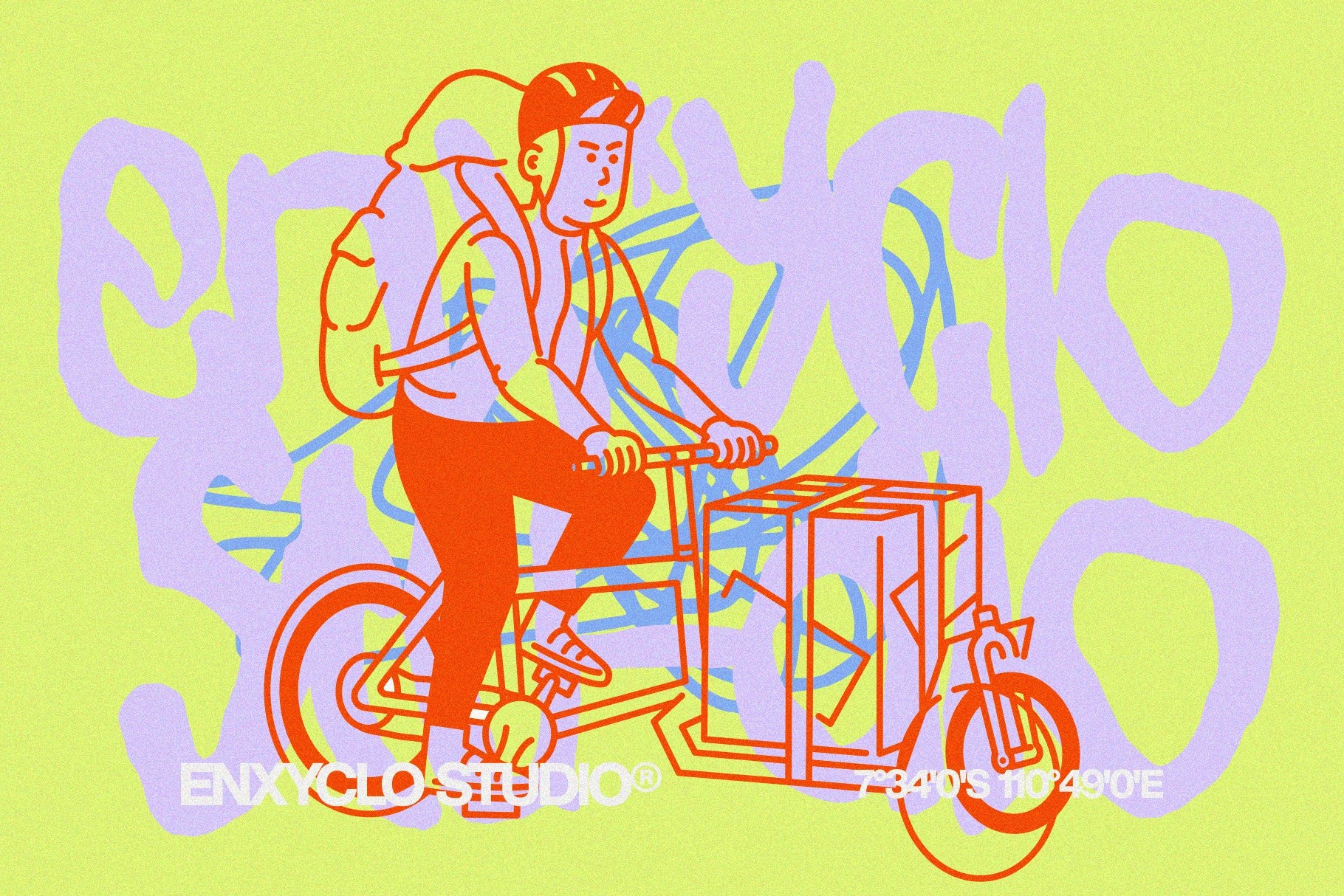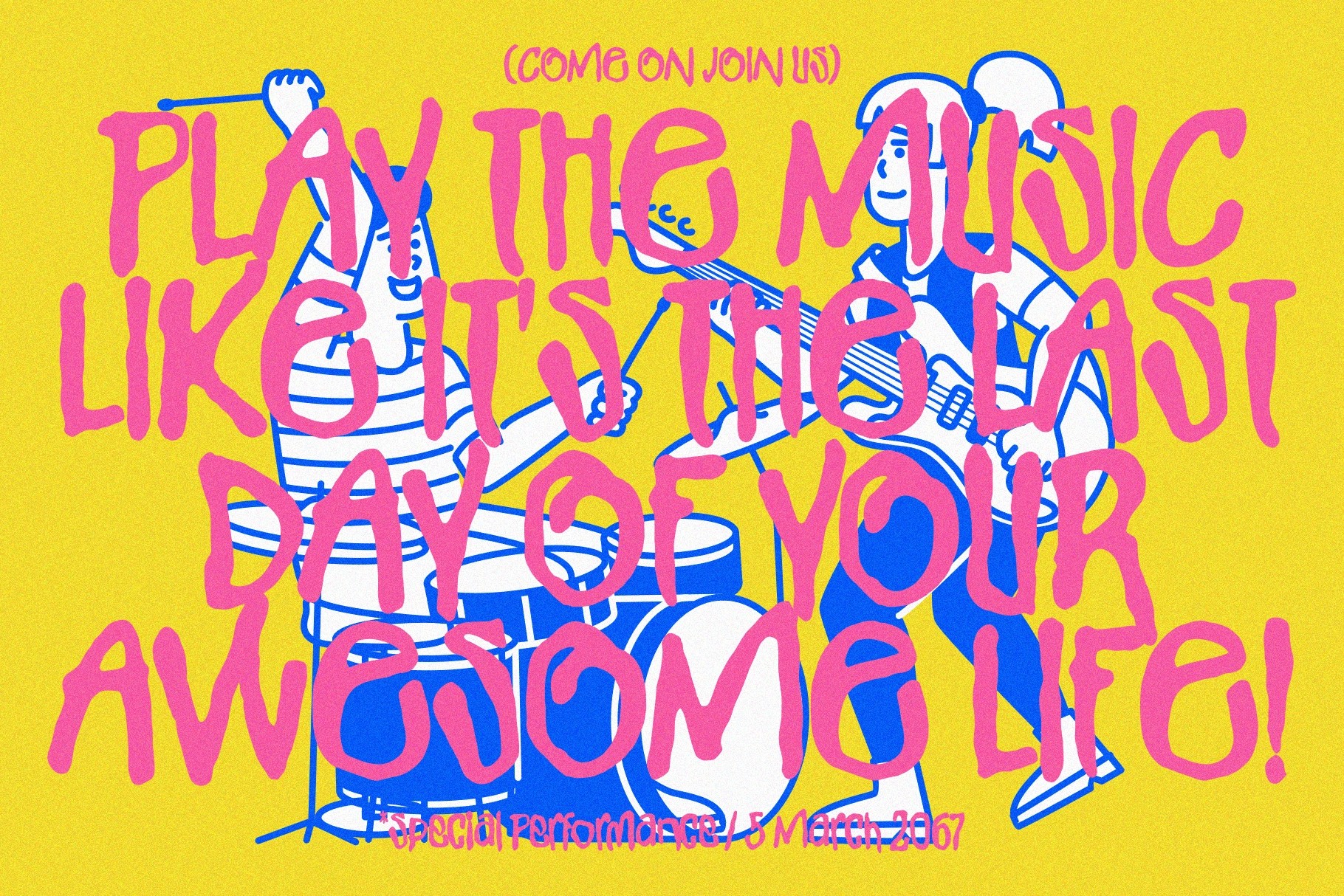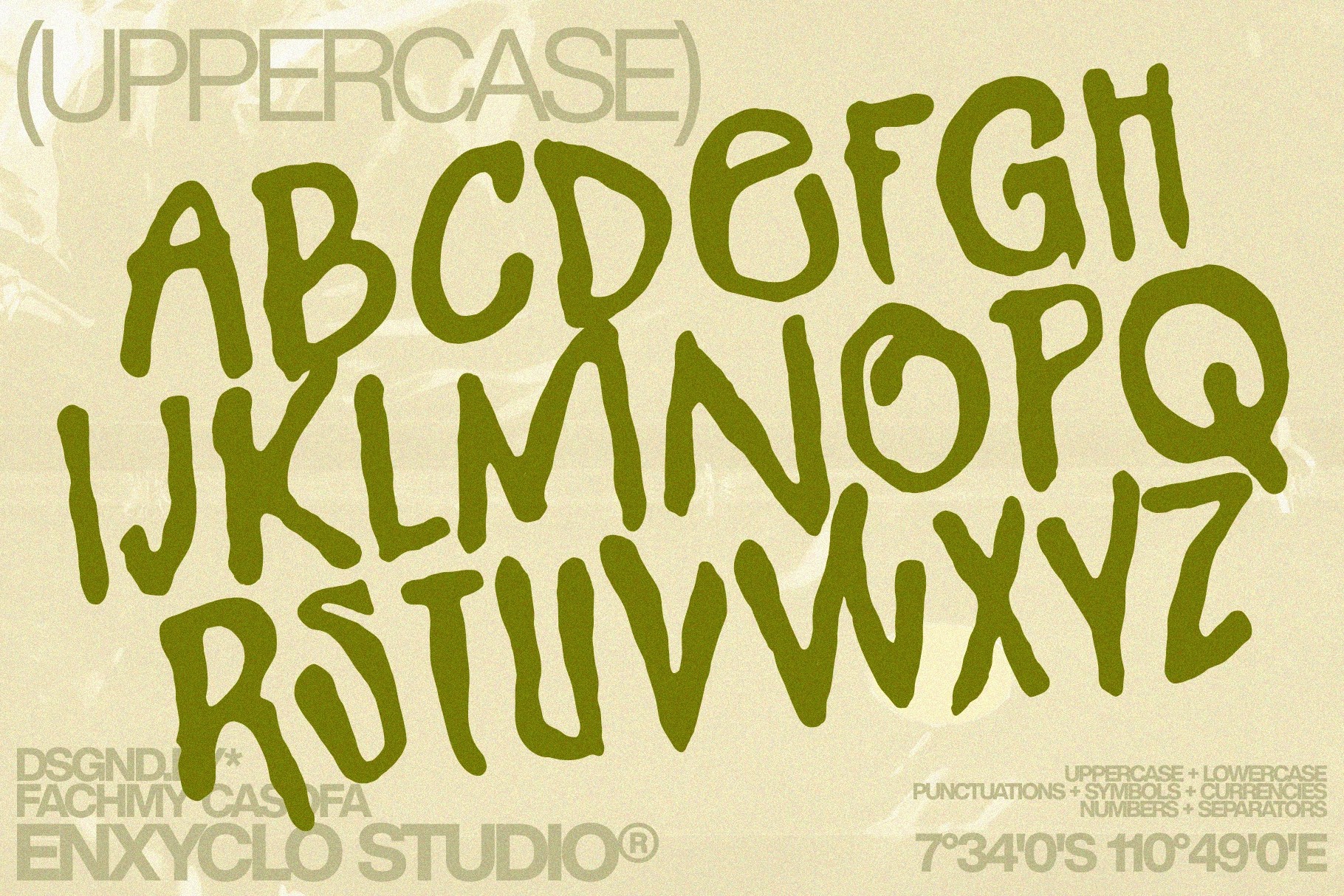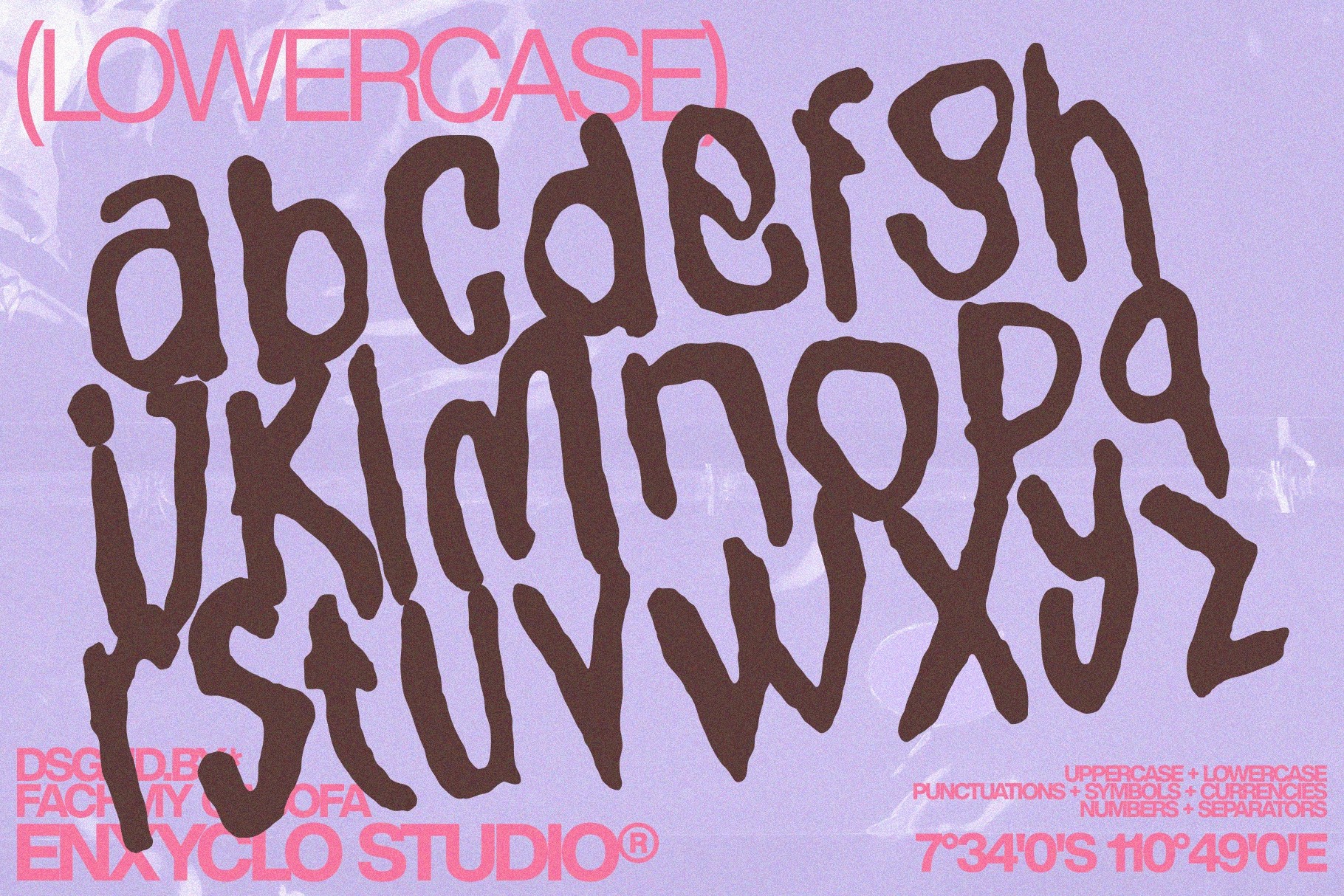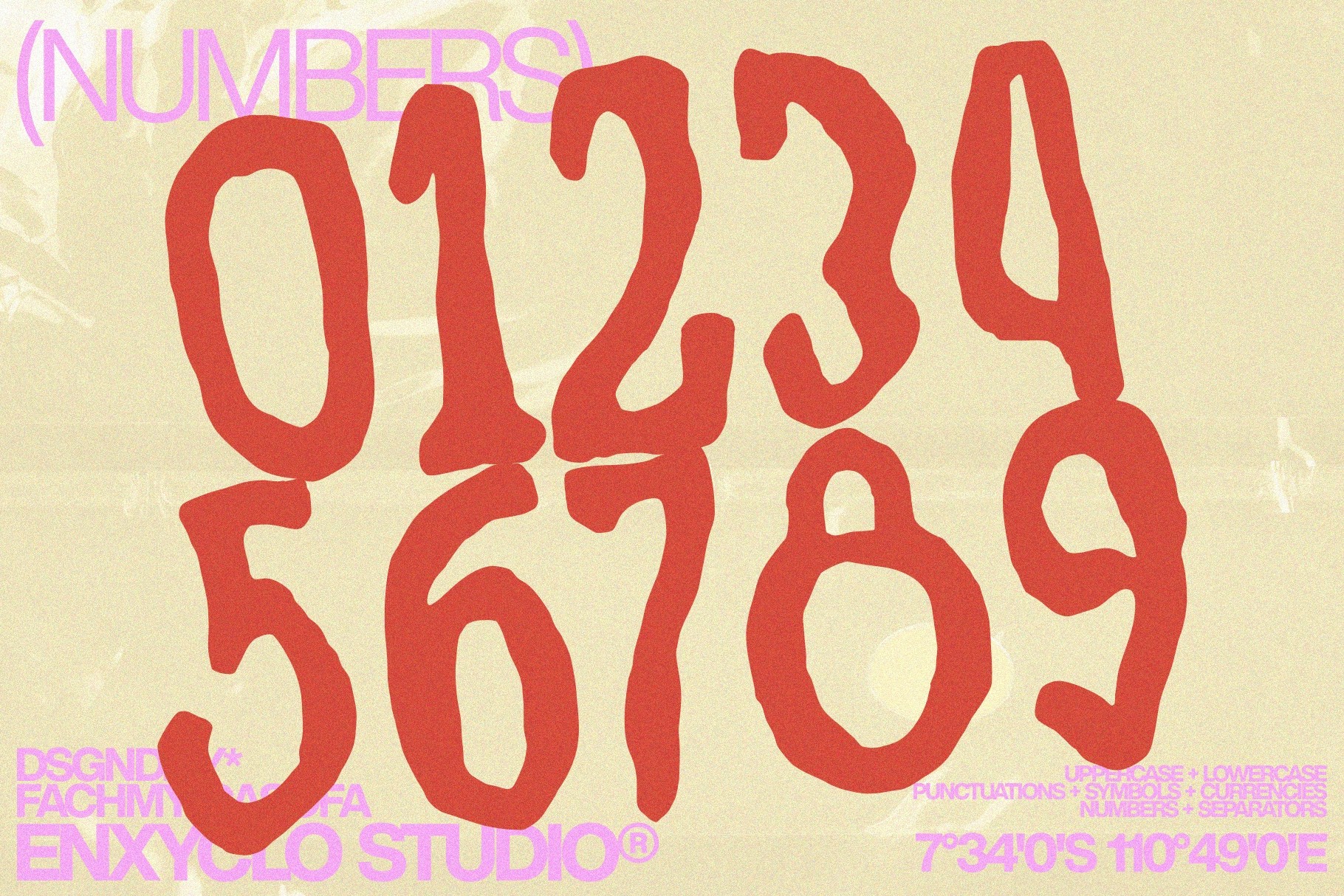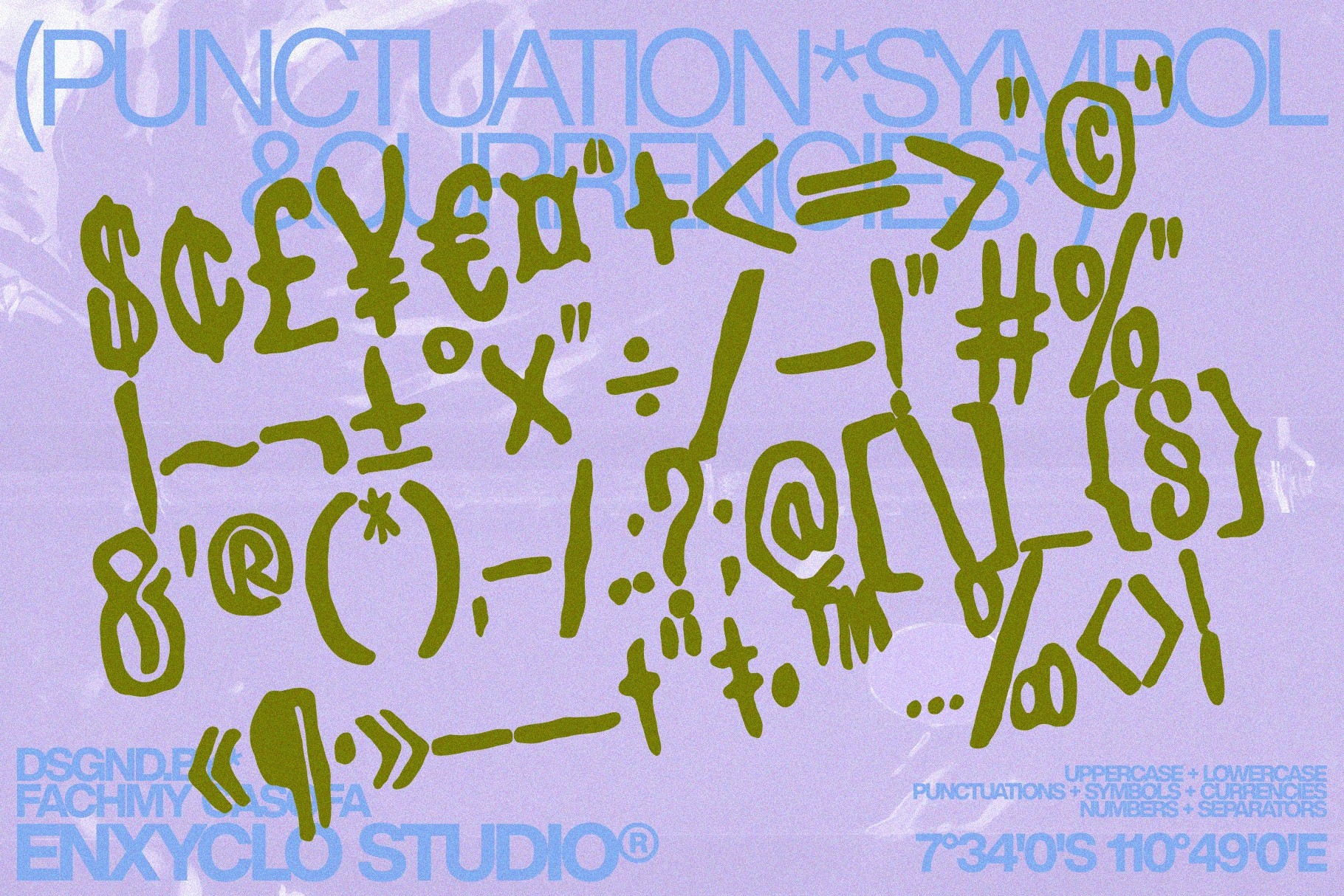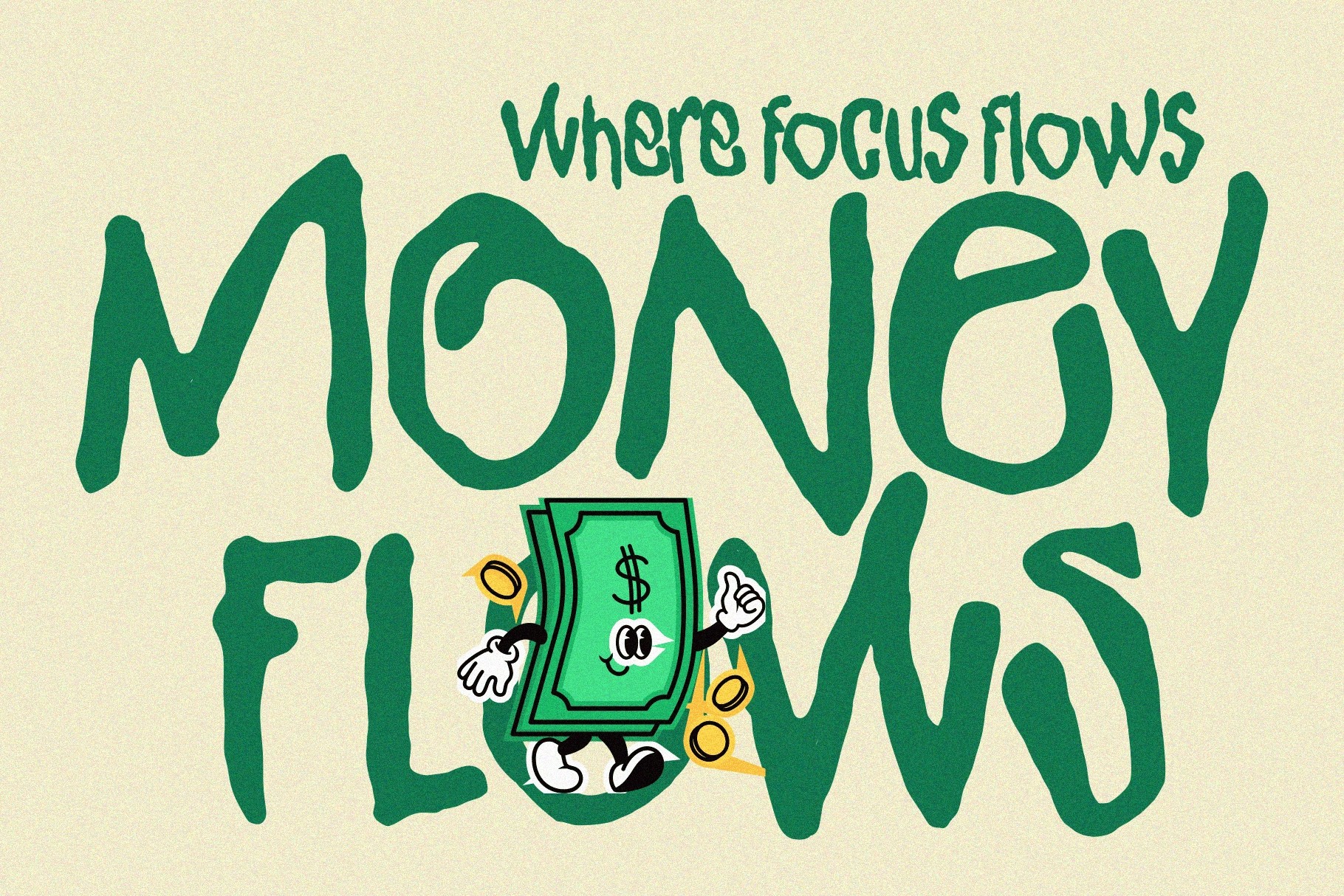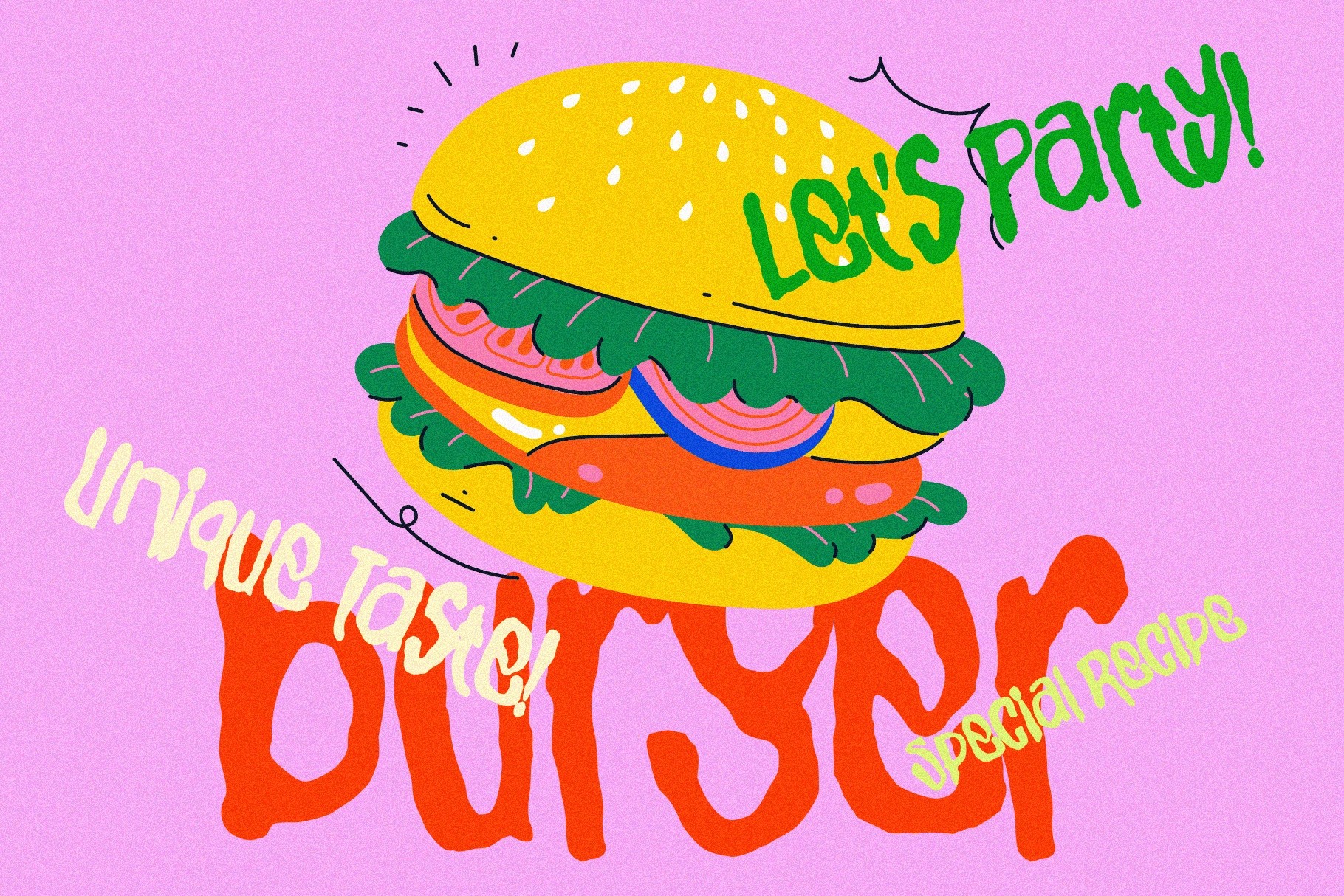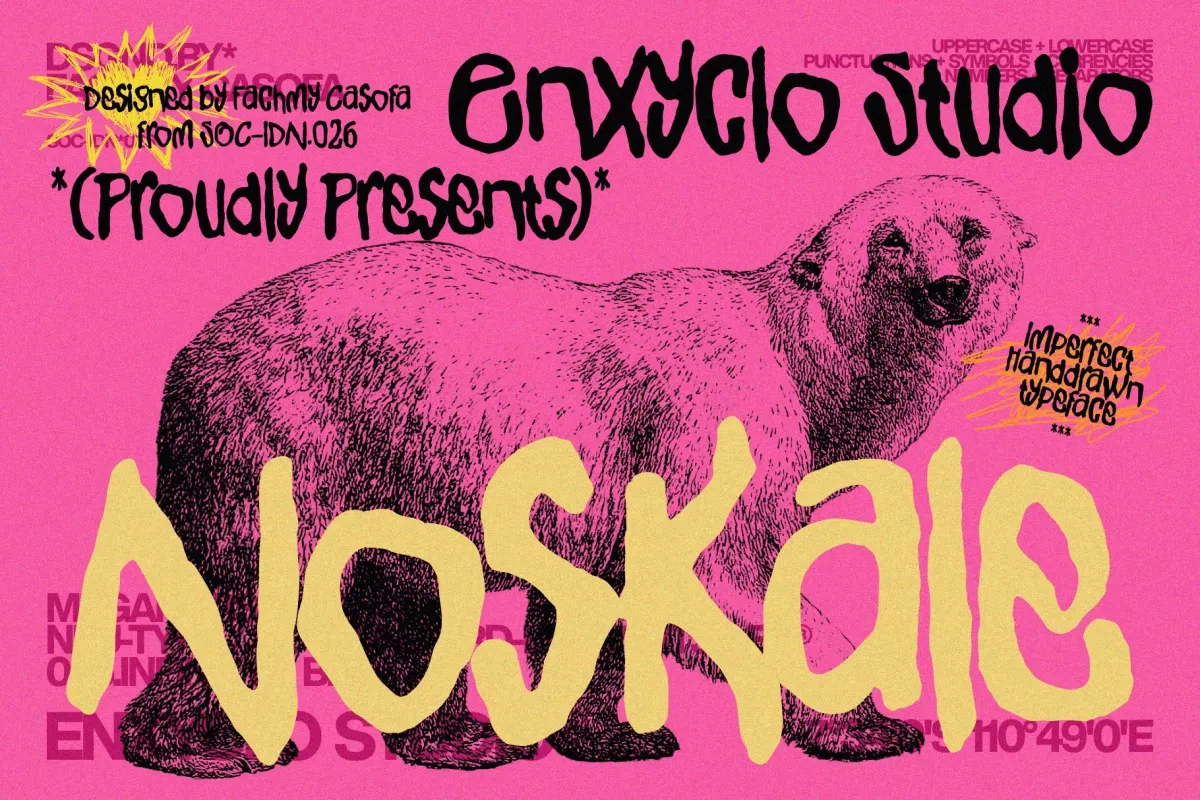
Noskale - Imperfect Handdrawn Font
Noskale - Imperfect Handdrawn Font is a bold and expressive typeface that embraces raw creativity and handcrafted imperfection. Built with gritty strokes and natural irregularities, it captures the authentic energy of urban design and contemporary visual culture.
Each letterform reflects dynamic movement and rough texture, creating a distinctive and organic look that stands out in modern branding. Noskale combines the spontaneity of hand-drawn lettering with a structured composition, resulting in a font that feels both artistic and impactful.
Ideal for logos, posters, branding, packaging, social media graphics, and creative campaigns, Noskale brings a strong personality and attitude to any project. Its imperfect aesthetic adds depth and authenticity, making designs feel more human, bold, and original.
• Uppercase & lowercase characters
• Punctuation & symbol set
• Currency symbols
• Handdrawn, textured style